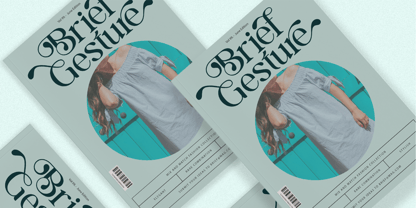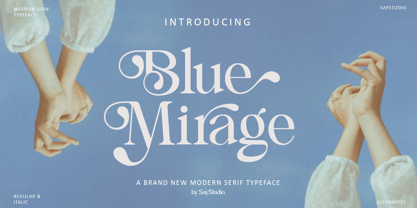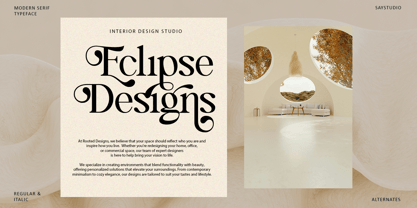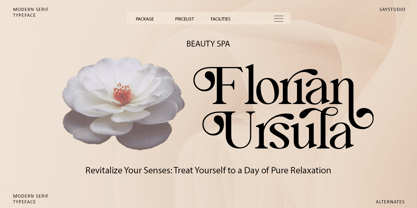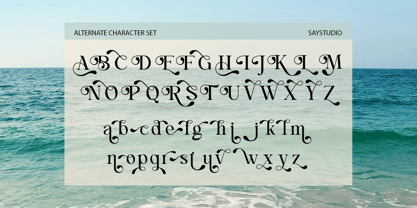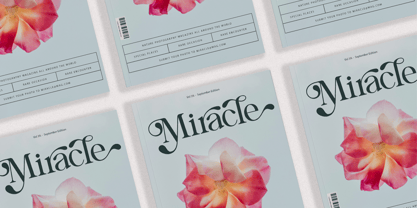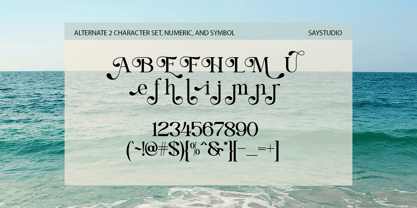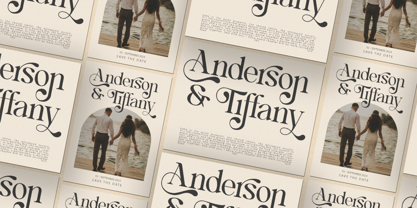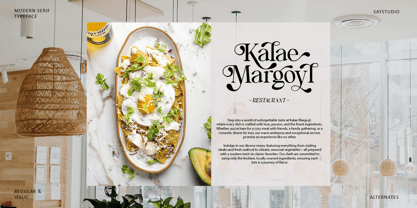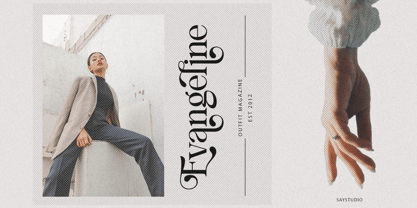
Blue Mirage
by Say Studio
The Blue Mirage Font Family was designed by Mussyayin and published by Say Studio. Blue Mirage contains 2 styles and family package options. More about this family
Blue Mirage is a modern serif with high contrast and elegant curves, more than just a pretty face. With over 60 unique and modern alternate letters, and incredibly versatile, allowing you to create truly unique and captivating typefaces perfect for any project that demands a touch of sophistication and lots of personality.
Designers: Mussyayin
Foundry: Say Studio